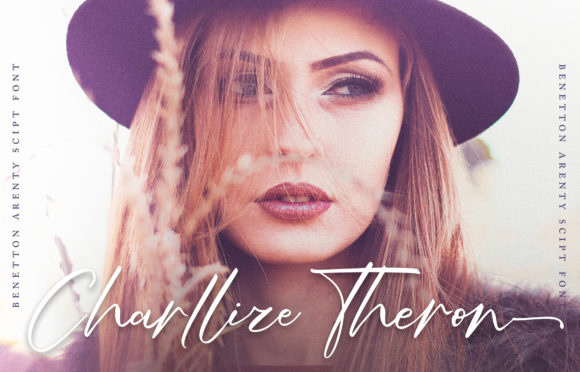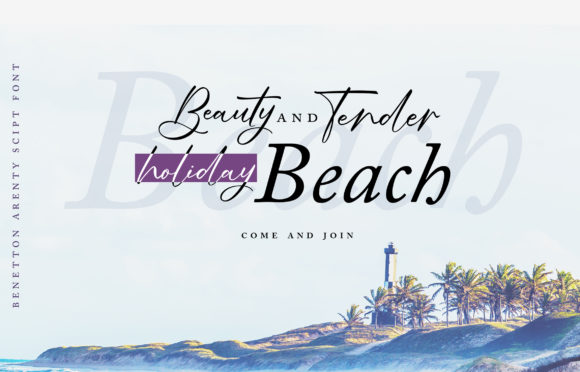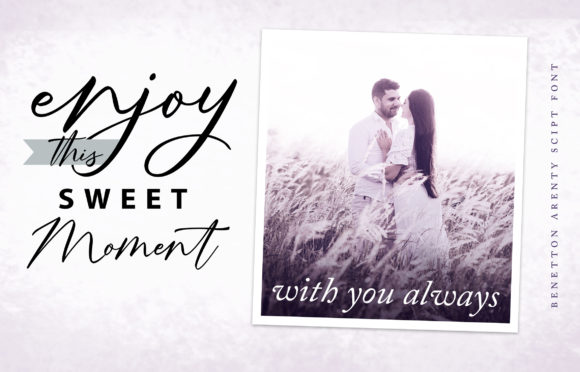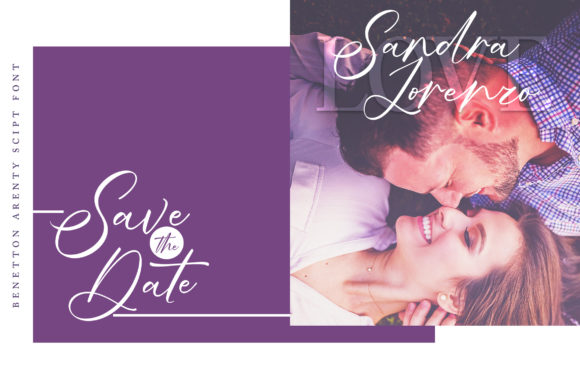
Benetton Arenty Font
About Benetton Arenty Font
Benetton Arenty is a magical handwritten font carefully created with a touch of elegance. Use this gorgeous font to elevate any DIY project!